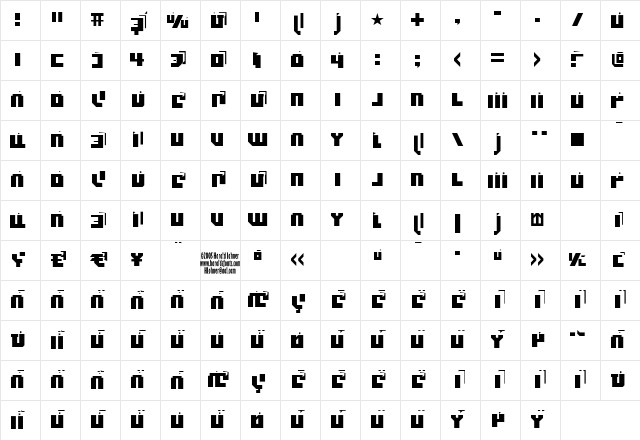
BlockedFront Regular Free Font
BlockedFront Regular
Copyright: BLOCKED computer fonts v1.1 © 2000, 2005 Harold Lohner "  " www.haroldsfonts.com Adaptation of the "lost" Letraset font "BlockUp," designed by Sally Ann Grover and ©1974 Letraset in analog form.
Design Context for BlockedFront
BlockedFront is a composed and adaptable typeface that performs quietly and consistently across a wide range of design contexts.